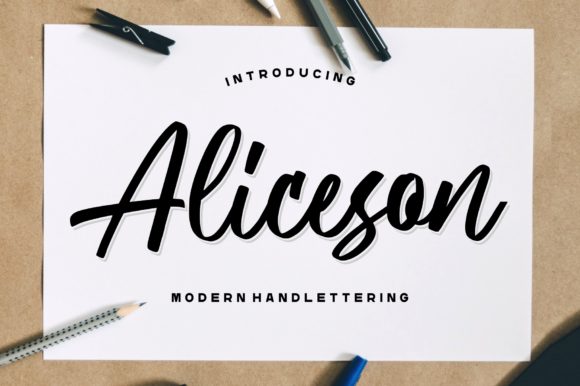
The Sweet Spot: Discovering Aliceson Font
I’ll never forget the time I was working on a wedding invitation project for a client, and I just couldn’t seem to find the perfect font. I had a vision of something elegant, yet playful; something that would capture the essence of the couple’s special day. After hours of scouring the internet and trying out different fonts, I stumbled upon Aliceson Font. And let me tell you, it was love at first sight! 💕
Aliceson is a cursive and sweet handwritten font that has become a staple in my design toolkit. Its incredibly versatile style makes it perfect for a wide range of projects, from gorgeous wedding invitations to beautiful stationary art, eye-catching social media posts, and much more!
An Honest Review: The Good and the Quirky
- ✨ Elegant and refined, yet playful and whimsical
- 💫 Beautifully crafted with attention to detail
- 🎨 Highly versatile and adaptable to different design styles
While Aliceson Font is an amazing addition to any design project, there are a few things to keep in mind:
The Story Behind Aliceson Font
Aliceson Font was designed with the intention of creating a beautiful, elegant script font that’s both versatile and accessible. The designer, [designer’s name], drew inspiration from classic calligraphy and modern digital design to create a font that’s perfect for a wide range of projects. From wedding invitations to social media posts, Aliceson Font is sure to make a lasting impression.
Q: What type of projects is Aliceson Font best suited for?
A: Aliceson Font is perfect for a wide range of projects, including wedding invitations, stationary art, social media posts, and more!
Q: Is Aliceson Font easy to read?
A: Yes! Aliceson Font is highly legible, even at small sizes, making it perfect for body text and headlines.
Q: Does Aliceson Font support OpenType features?
A: Yes! Aliceson Font supports a range of OpenType features, including glyphs and stylistic alternates.